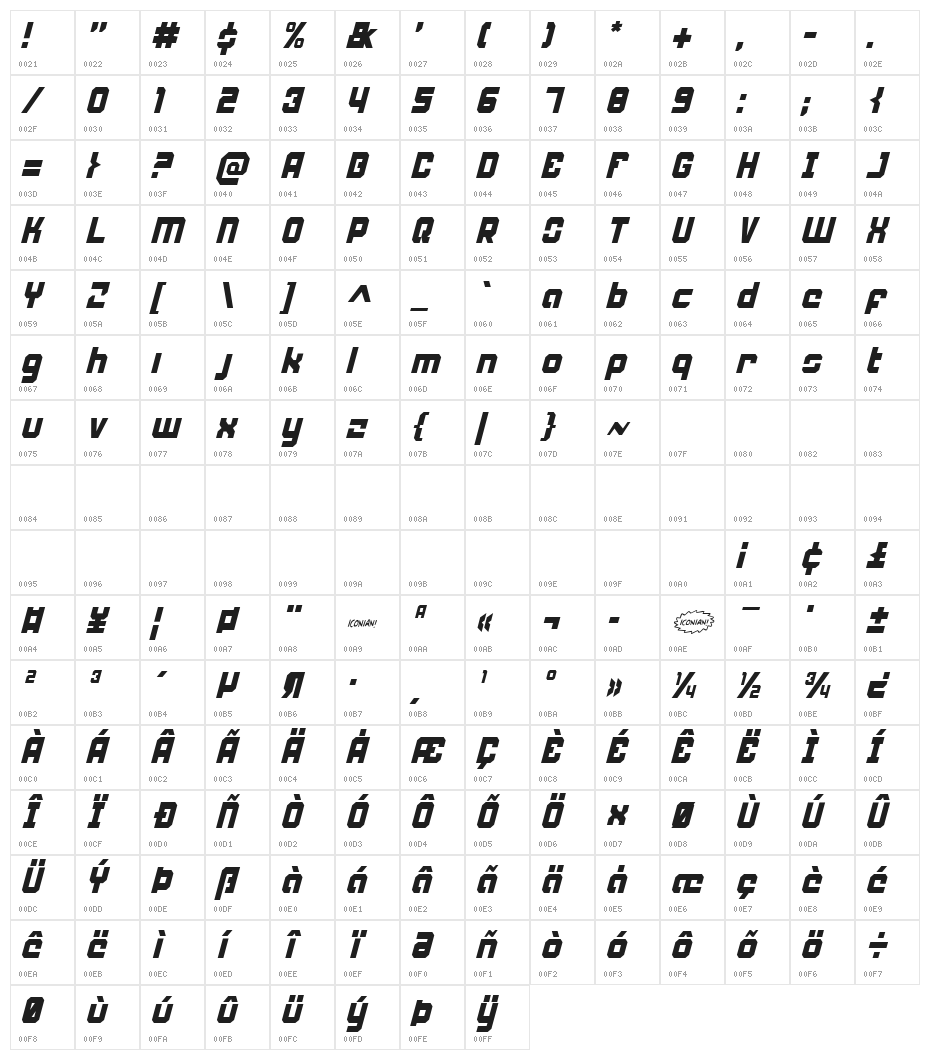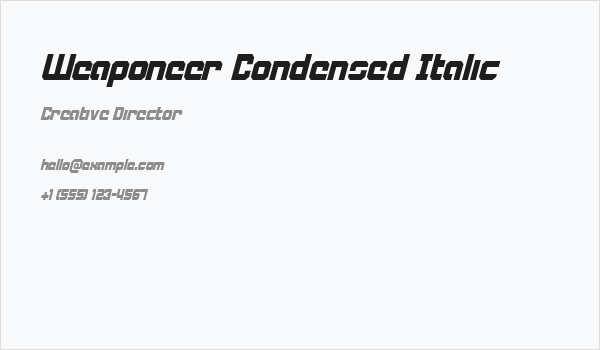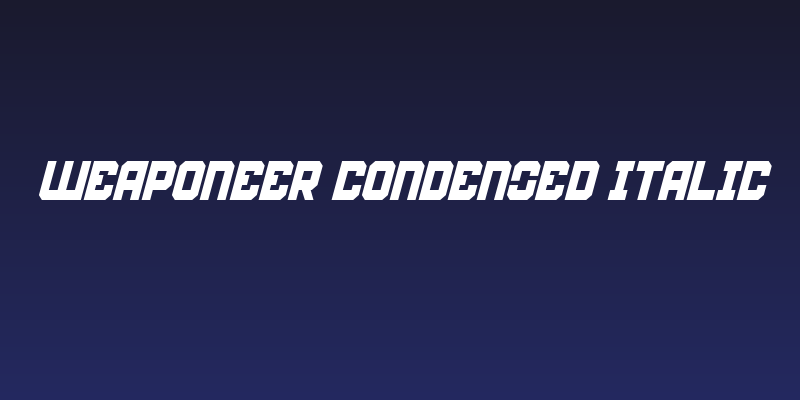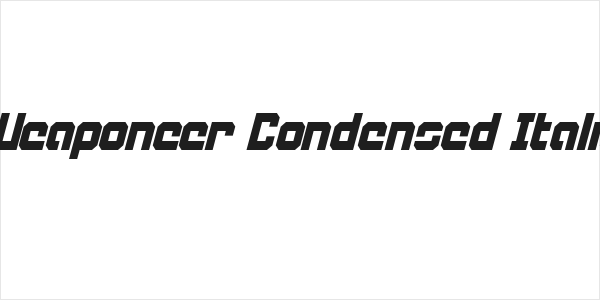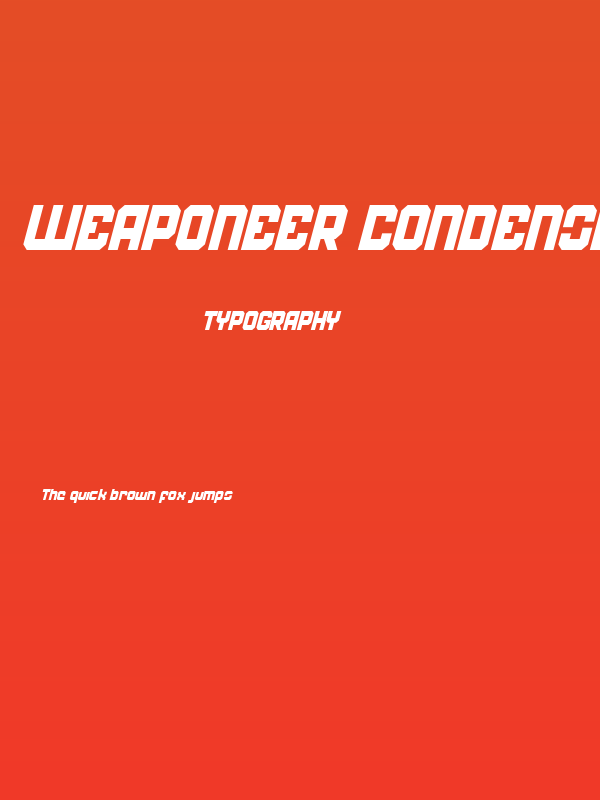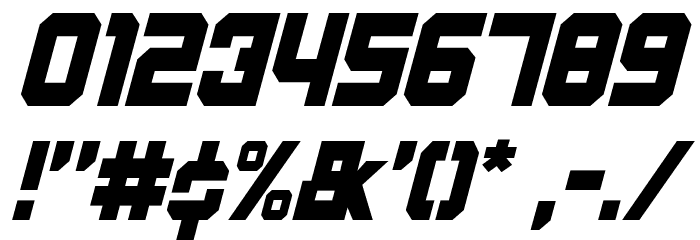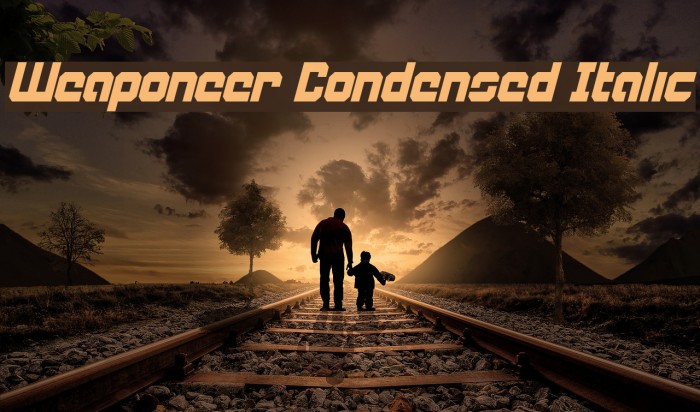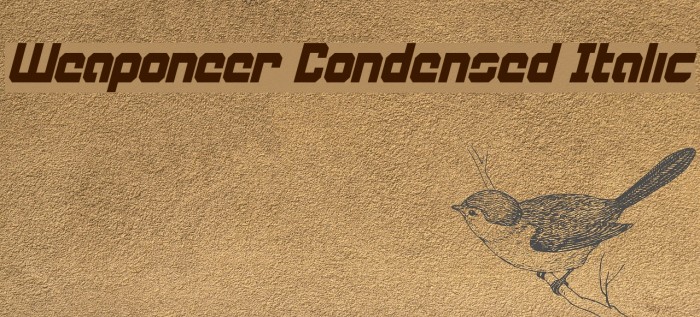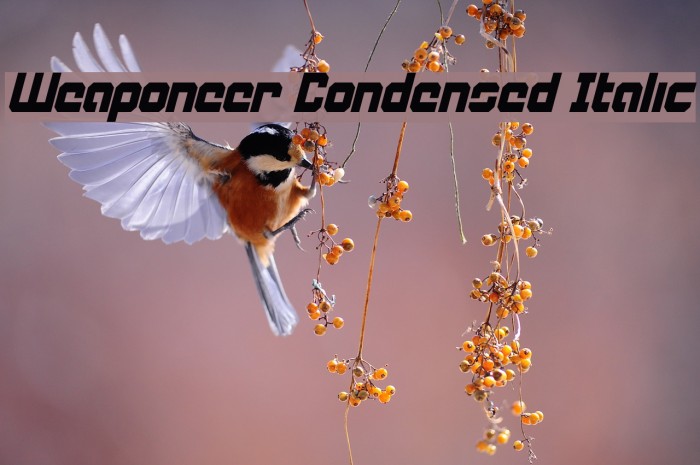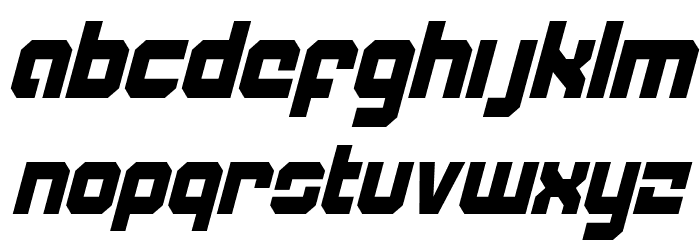
Weaponeer Condensed Italic Font
Weaponeer Condensed Italic Description
This font features a bold, angular design with a strong geometric influence. The characters are condensed and italicized, giving them a dynamic and forward-leaning appearance. The uppercase and lowercase letters maintain a consistent style, with sharp edges and a uniform stroke width. The numbers and special characters follow the same design principles, ensuring a cohesive look across all glyphs. The overall aesthetic is modern and assertive, making it suitable for impactful headlines and branding.
| Proposed Projects | Ideal for use in branding, sports team logos, video game titles, and dynamic poster designs. |